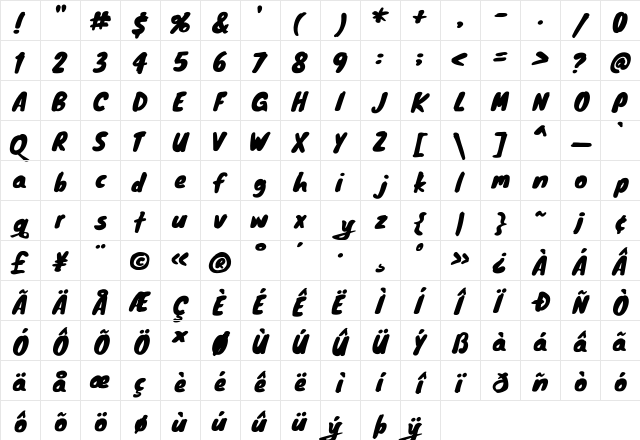
Eziear Regular
| Foundry | DMF |
| Designer | lvaro Thom |
Design Context for Eziear Typeface
Eziear is a composed and adaptable typeface that performs quietly and consistently across a wide range of design contexts.